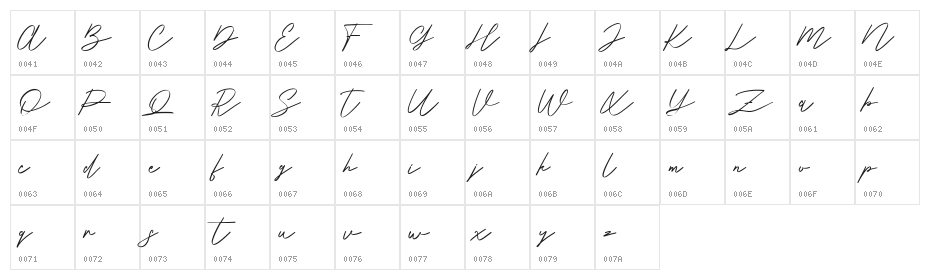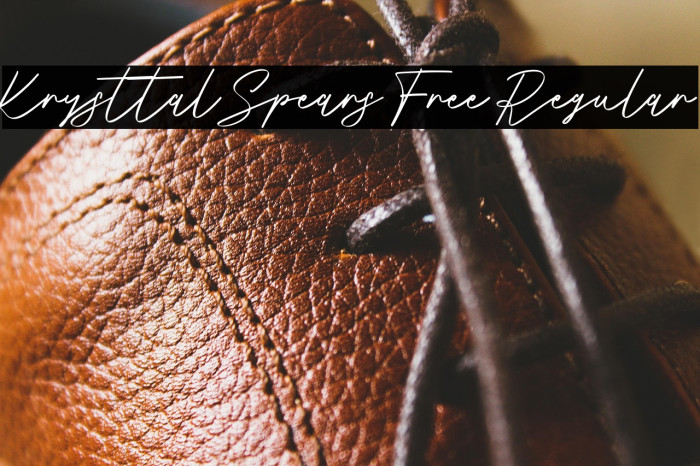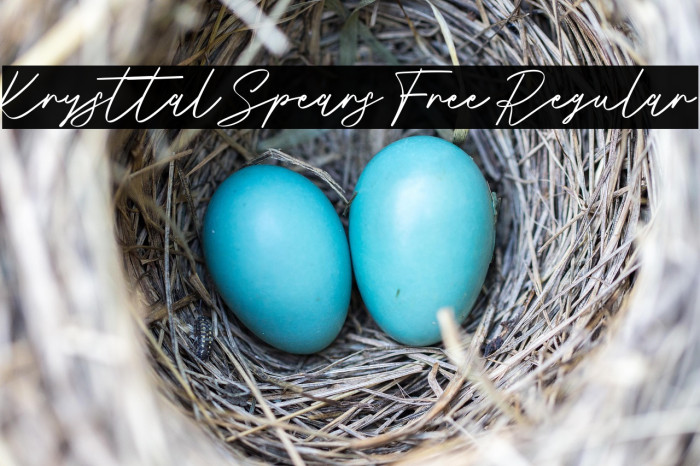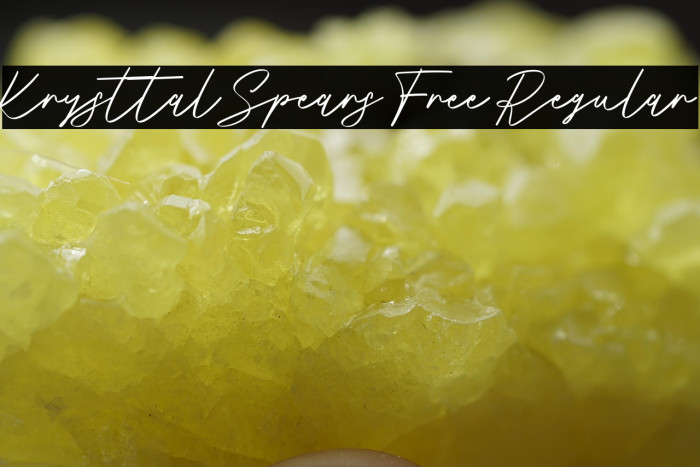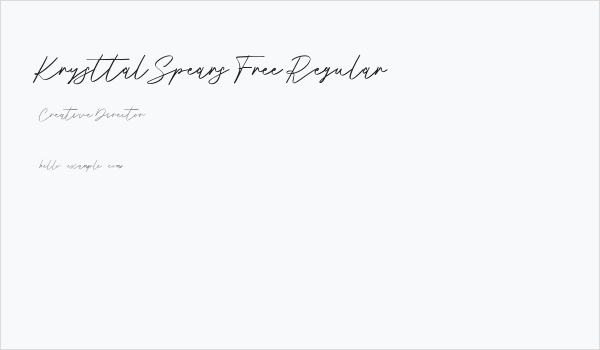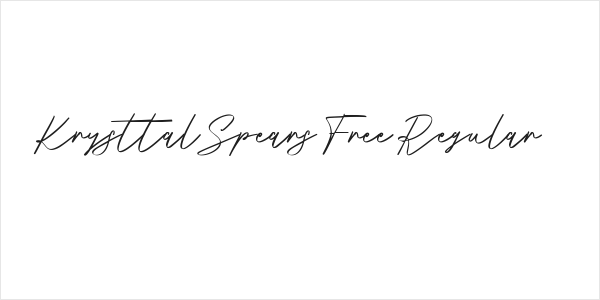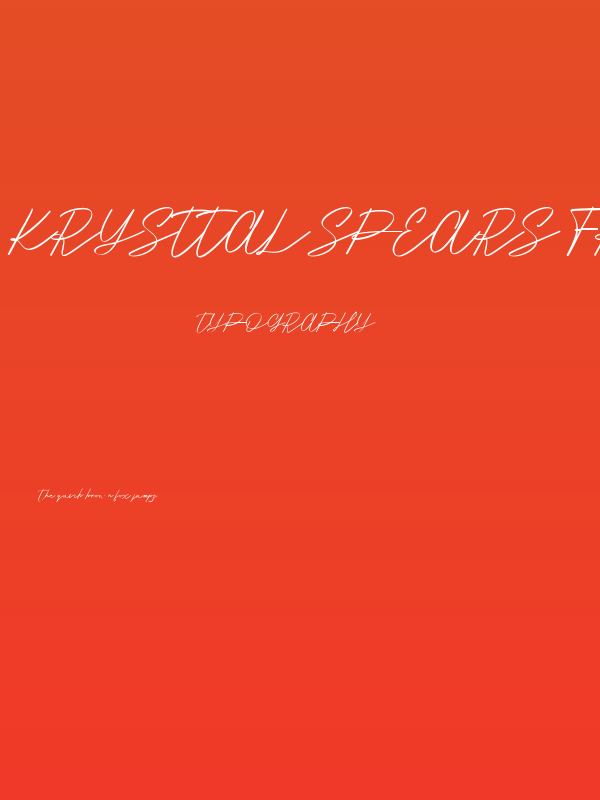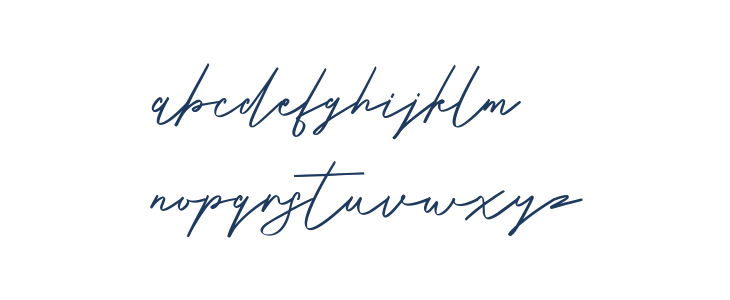
Krysttal Spears Free Regular Font
Krysttal Spears Free Regular Description
This font features a flowing, cursive style with elegant, sweeping lines that mimic the fluidity of natural handwriting. The characters are interconnected, creating a seamless and harmonious appearance. The uppercase letters are bold and prominent, while the lowercase letters maintain a consistent, graceful form. The strokes are smooth and continuous, with a slight slant that adds to the dynamic and lively feel of the font. This script font exudes sophistication and charm, making it ideal for projects that require a personal touch.
| Proposed Projects | Ideal for wedding invitations, greeting cards, personal branding, and elegant logos. |